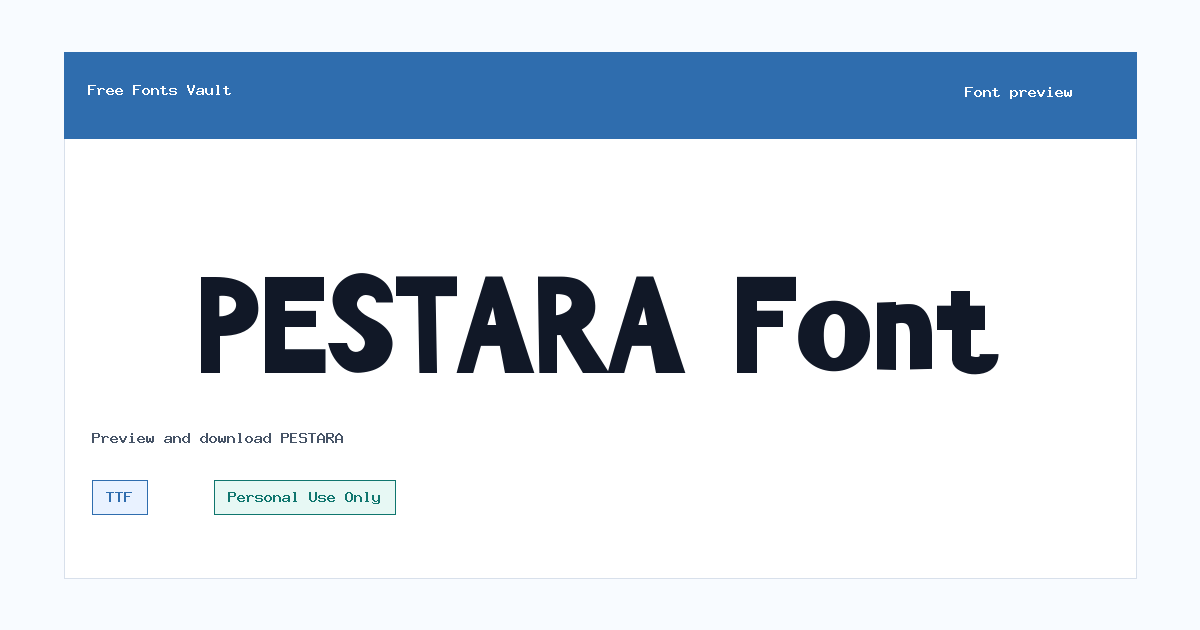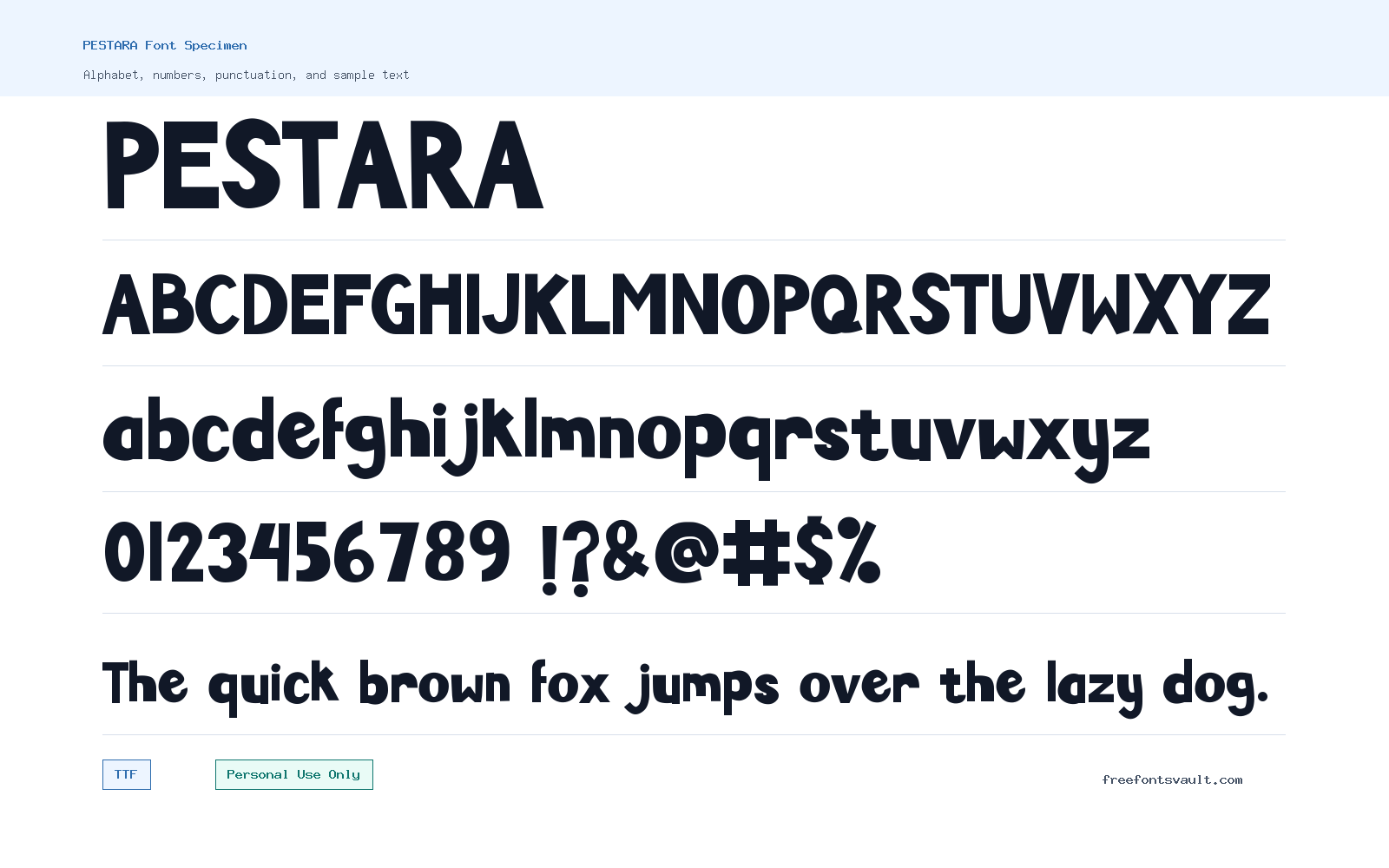
PESTARA
PESTARA font.
About PESTARA Font
PESTARA has the straightforward feel of a sans serif typeface: clear letter shapes, an uncluttered structure, and a regular weight that can sit comfortably in many everyday design layouts. Because only the regular style is included, it is best treated as a single-style display and text option rather than a full branding system with bold, italic, or multiple weights. That makes it easy to test quickly in a font previewer, especially for short titles, names, simple headings, social graphics, invitation drafts, and clean personal design concepts. If you are comparing it with more decorative fonts, PESTARA will likely feel calmer and easier to place beside images or illustrations because it does not rely on heavy ornament or extreme contrast.
- Regular-weight sans serif style with a clean, low-distraction appearance for simple personal design work.
- Single regular variant, which makes it easy to preview but limits advanced typography choices such as bold emphasis, italic styling, or weight-based hierarchy.
- Uncomplicated letterforms that are better suited to short text, headings, labels, and layout tests than to highly decorative logo-style lettering.
- Personal posters, quote graphics, mood boards, and non-commercial social media designs where a neat sans serif look is needed.
- Simple headings, names, date lines, short captions, and clean title treatments in private or practice projects.
- Pairing with a more expressive script, serif, or display font when you need a quieter supporting typeface for secondary text.
What kind of font is PESTARA?
PESTARA is identified as a sans serif font. Its regular style is suitable for clean headings, simple labels, personal graphics, and layout previews.
Does PESTARA include bold or italic styles?
The available font files show a regular style with normal weight. No bold, italic, or extra weight variants are confirmed.
Is PESTARA good for long paragraphs?
It may be readable in short blocks, but it is safer to test paragraph text carefully. Since only one regular style is available, long editorial layouts may need a larger font family with more weights and styles.